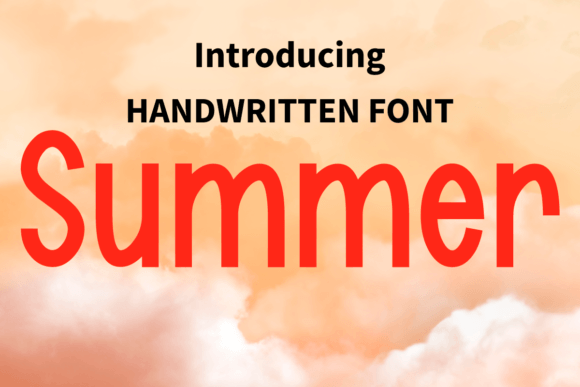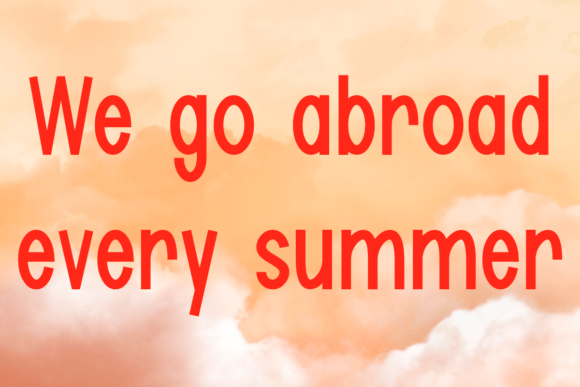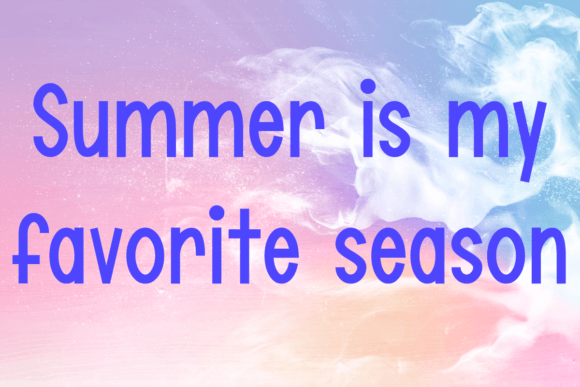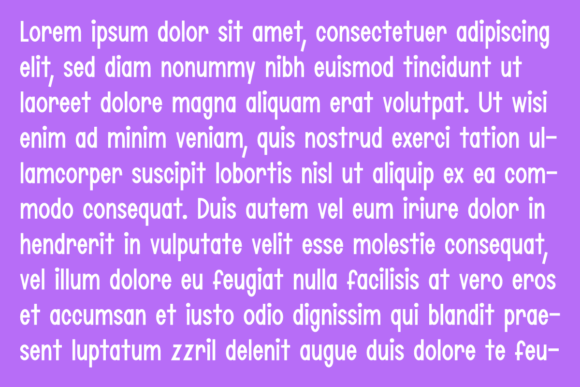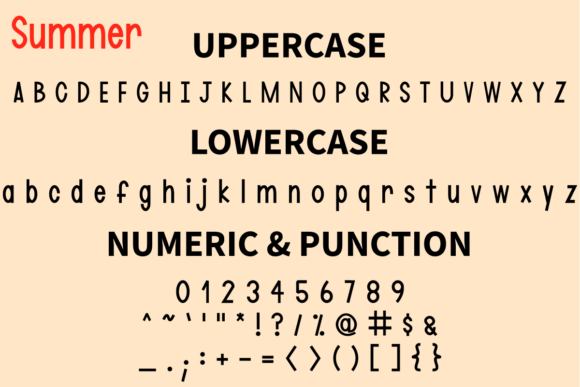
Summer Font
About Summer Handwritten Font
Summer Handwritten Font is a simple, friendly, and playful script designed to add joy and charm to your creative projects. With its whimsical strokes and slightly quirky style, it captures the warmth of handwriting while remaining modern and professional. Because of its versatility, Summer Handwritten Font is ideal for invitations, posters, packaging, magazines, logos, and social media graphics.
A Playful Typeface with Cheerful Personality
Handwritten fonts often bring authenticity and character, and Summer Handwritten Font does exactly that. Its smooth lines and balanced proportions give your text a handcrafted feel while maintaining clarity. In addition, its cheerful design makes it suitable for projects that require a fun yet elegant touch.
Special occasions deserve fonts that feel personal, and Summer Handwritten Font is an excellent choice. For example, it adds charm to wedding invitations, thank-you notes, and menus. Moreover, it enhances seasonal greeting cards, birthday stationery, and festive projects, ensuring every creation feels joyful and memorable.
A Handwritten Typeface for Branding and Packaging
Businesses and designers can benefit from Summer Handwritten Font in branding projects. It looks stunning on boutique logos, product packaging, and promotional materials. Furthermore, it adapts seamlessly to magazine layouts, online ads, and social media content. When paired with minimalist sans serif fonts, it creates a polished and professional identity.
Flexible Across Print and Digital Media
Another strength of Summer HandwrittenFont is its adaptability across mediums. In print, it elevates posters, brochures, and merchandise with personality. Digitally, it integrates smoothly into blogs, websites, and online stores. Since it scales perfectly from small labels to large banners, it guarantees readability and consistency everywhere.